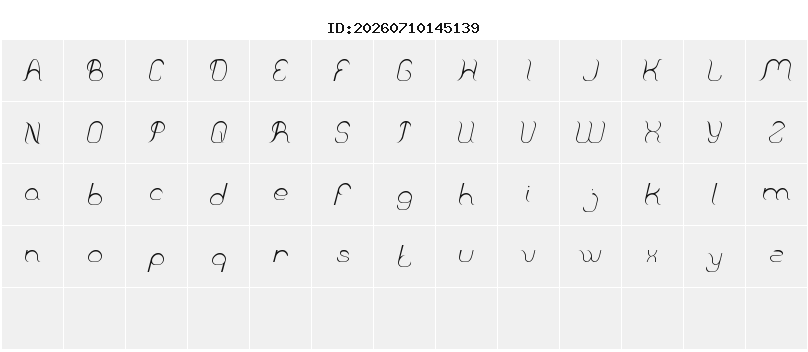
• Font Name: Falling In Love
• Full Font Name: Falling In Love
• Version: Version 1.00 May 21, 2012, initial release
About Falling In Love.ttf
Falling In Love.ttf is a modern, elegant sans-serif font designed for ultimate readability and visual harmony. Perfect for branding, headlines, web design, and print materials.